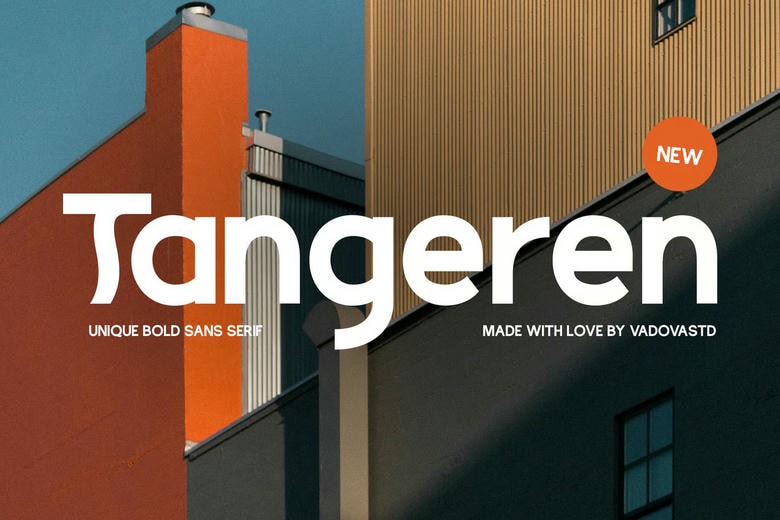
Tangeren Font
Tangeren Bold Sans Serif is a special bold sans serif font that has the geometrical touch and artistic features with alternates which impresses as an authoritative statement. Clean lines, eccentric terminals, stylistic alternates typify this font that harmonises the modern precision of a sans serif and the energy of expressive detail as used in editorial layouts, branding, technologies and fashion forward designs. With a solid character and elegant format it is also suitable to use this font on the headlines, magazine covers, and visual identities in an attempt to acquire a lack of mildness, and modern elegance.
Relevance and Use Cases Tangeren is ideal in modern san serif, geometric typeface, bold headline, minimal branding, logo design, editorial layout, magazine titles, creative agency branding, fashion look book, startup identity, clean web font, tech packaging of products, futuristic poster design, UX headline font, architectural design presentation, lifestyle branding, and advertising design etc.
Tangeren Bold Sans Serif Font